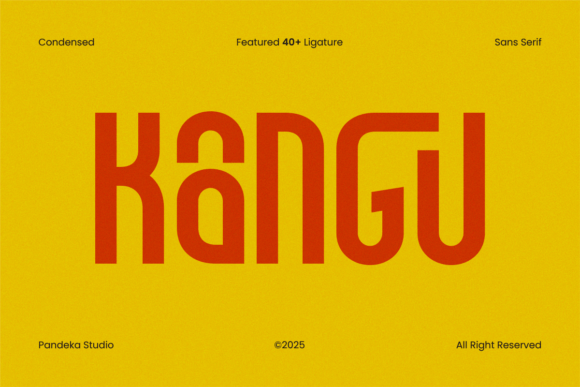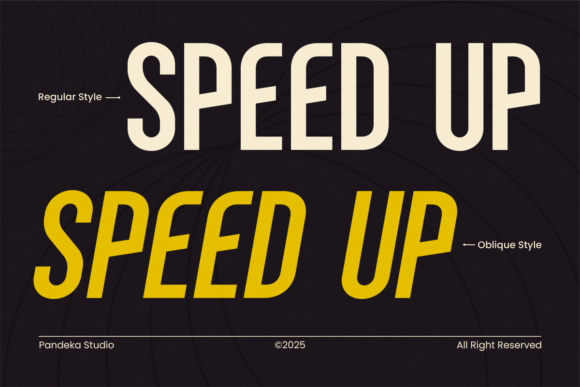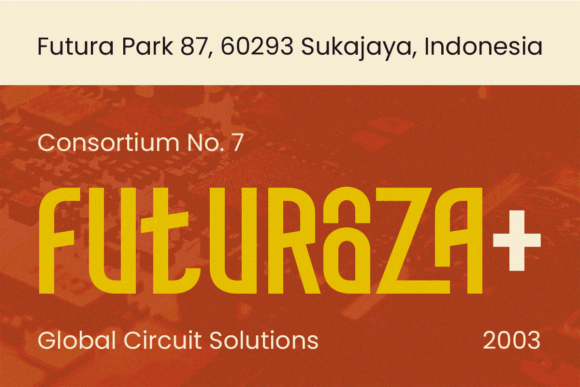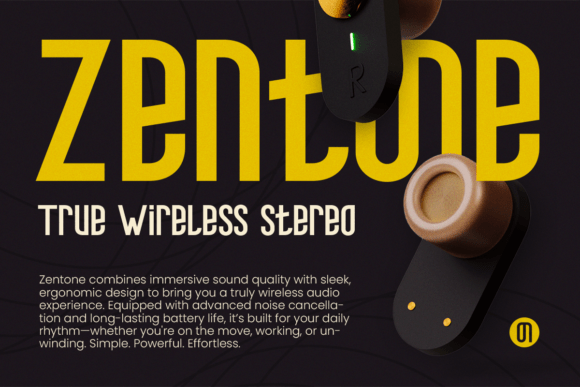
Kangu Font: A Bold Sans Serif for Modern Logo Design & Tech Branding
About the Kangu Font
Unleash your creativity with Kangu Font, a versatile font perfect for a wide range of applications. Kangu is a bold, futuristic sans-serif font crafted for innovation-driven designs. With its sharp angles and dynamic style, Kangu perfectly fits tech branding, esports, automotive, and modern advertising. The font features uppercase, lowercase, numbers, punctuation, and multilingual support, making it highly versatile for diverse projects aiming to deliver a cutting-edge impact.
Kangu excels in headlines, short impactful statements, and logo design, delivering a strong, memorable visual punch. Its bold geometry makes it unsuitable for body text or lengthy paragraphs; readability suffers at smaller sizes. Avoid using Kangu in user interfaces where legibility is paramount.
The font’s core personality is bold and assertive, conveying technological advancement and futuristic energy. Brands targeting a young, tech-savvy audience will find it particularly effective.
Pairing Kangu works best with a clean, neutral sans-serif like Open Sans for body copy, or a more refined serif such as Garamond for a touch of classic elegance to balance its aggressive geometry. Avoid pairing it with other similarly geometric sans-serif fonts, as this might create visual overload.
Kangu Font Usage Examples
Kangu Font Example